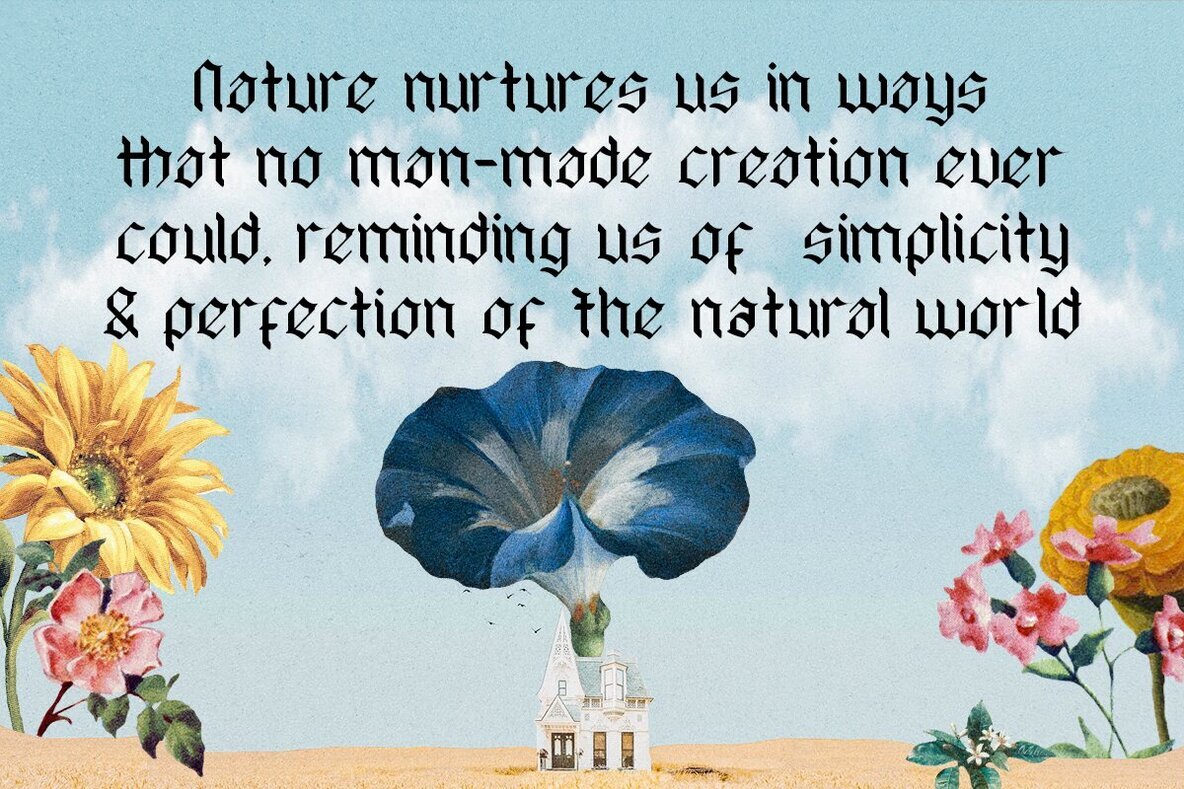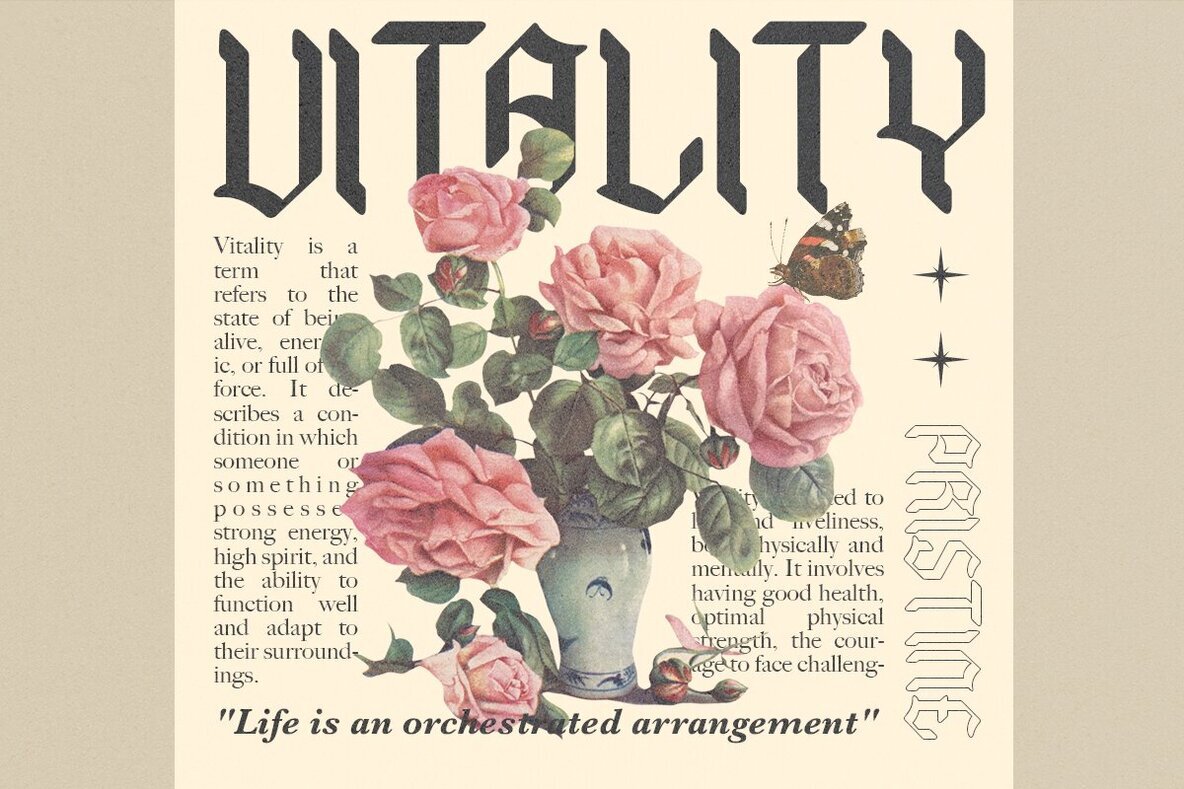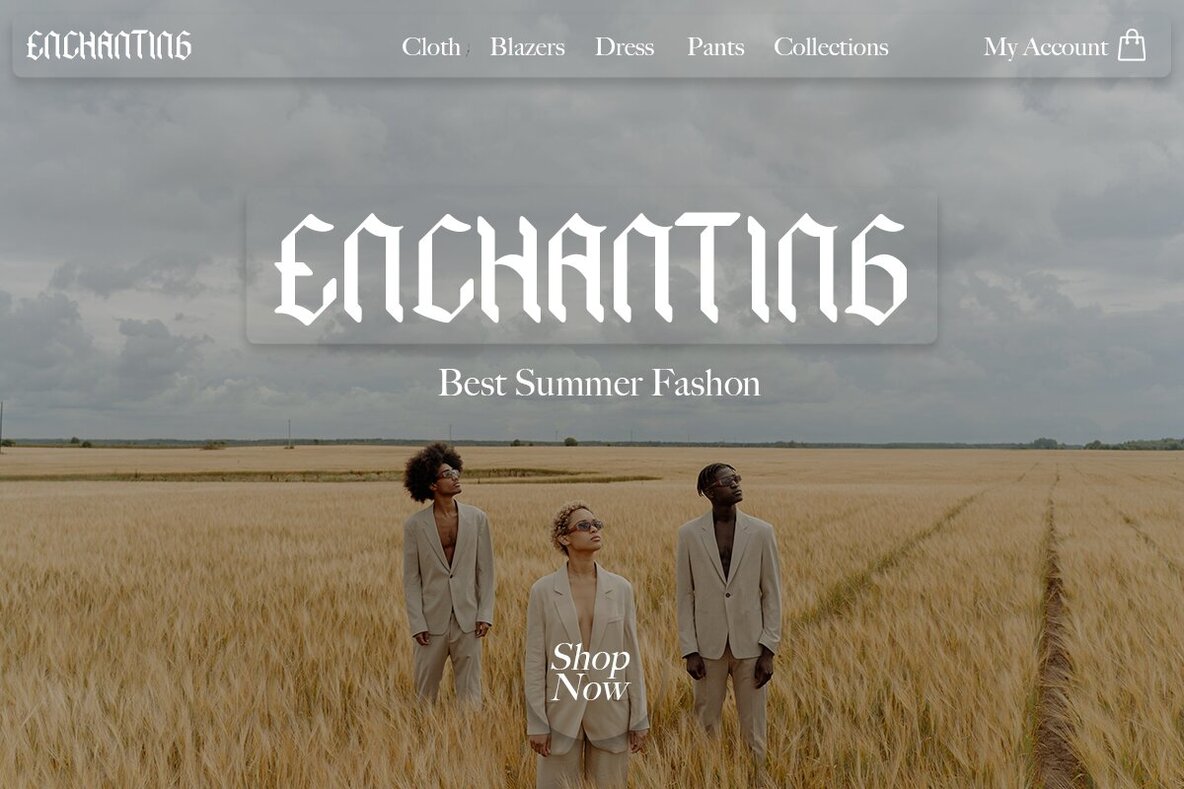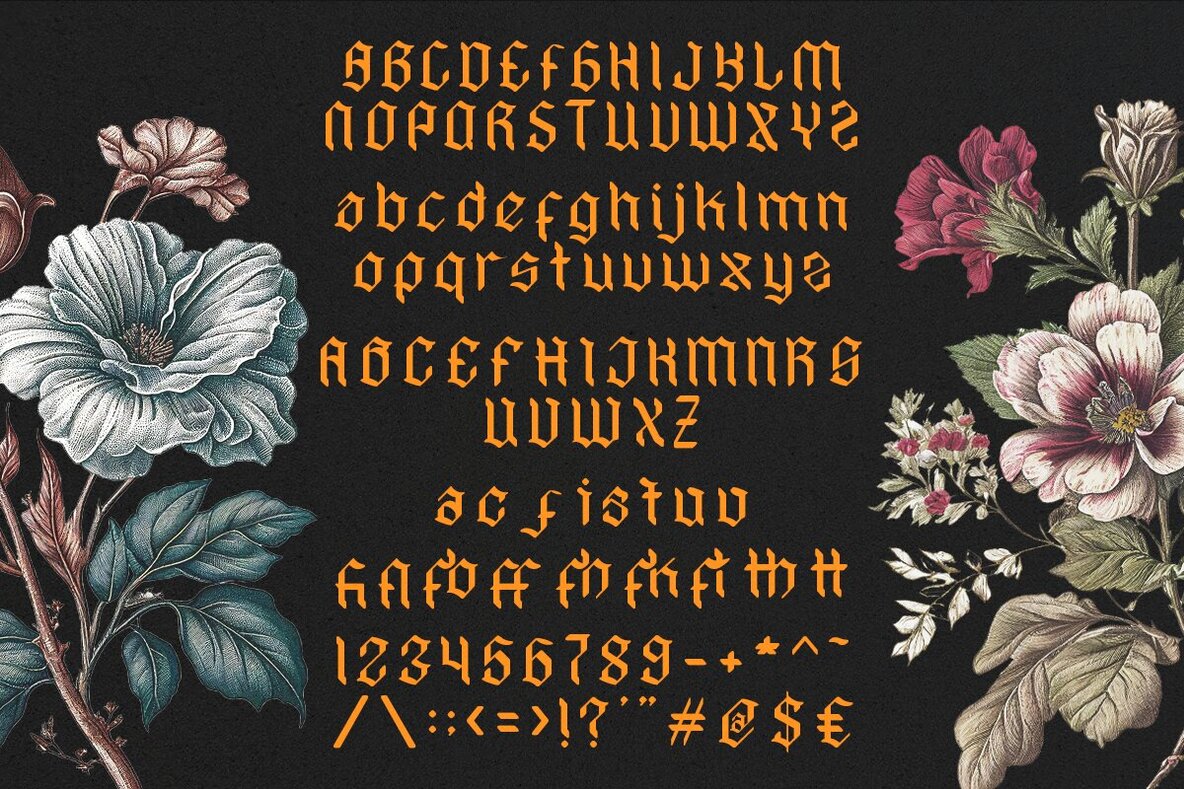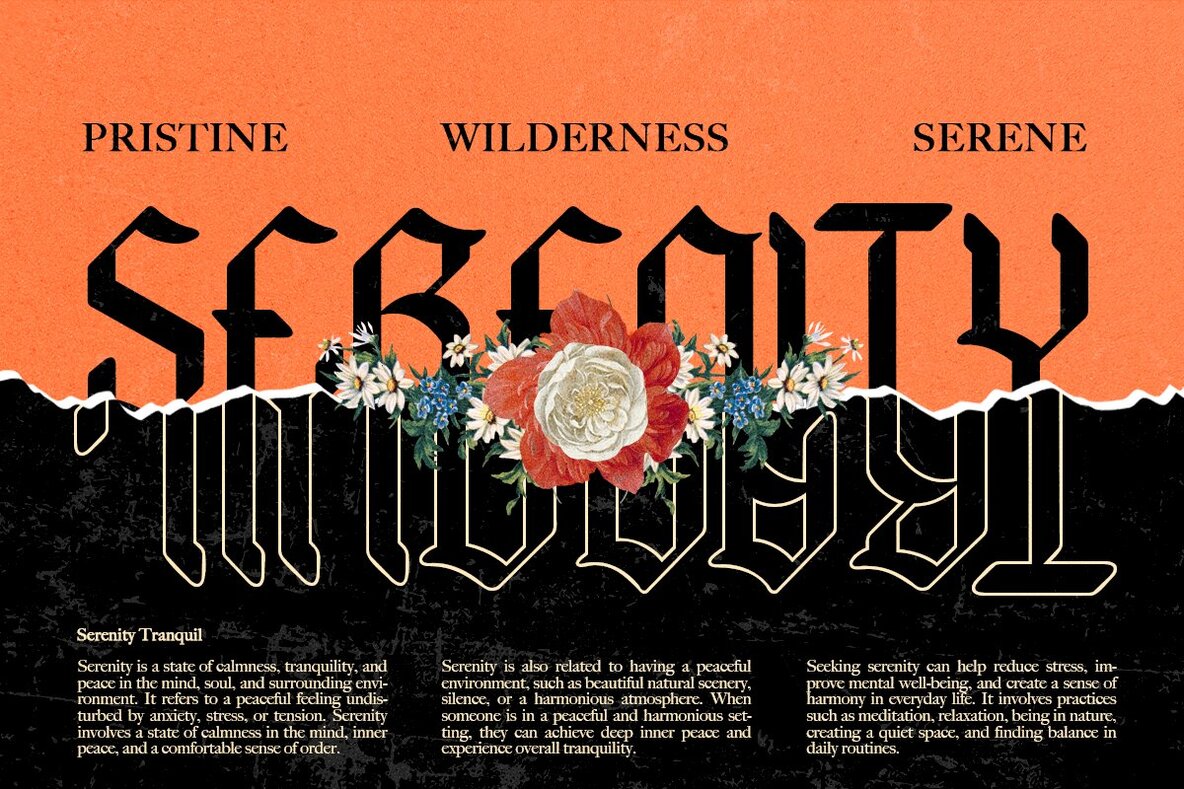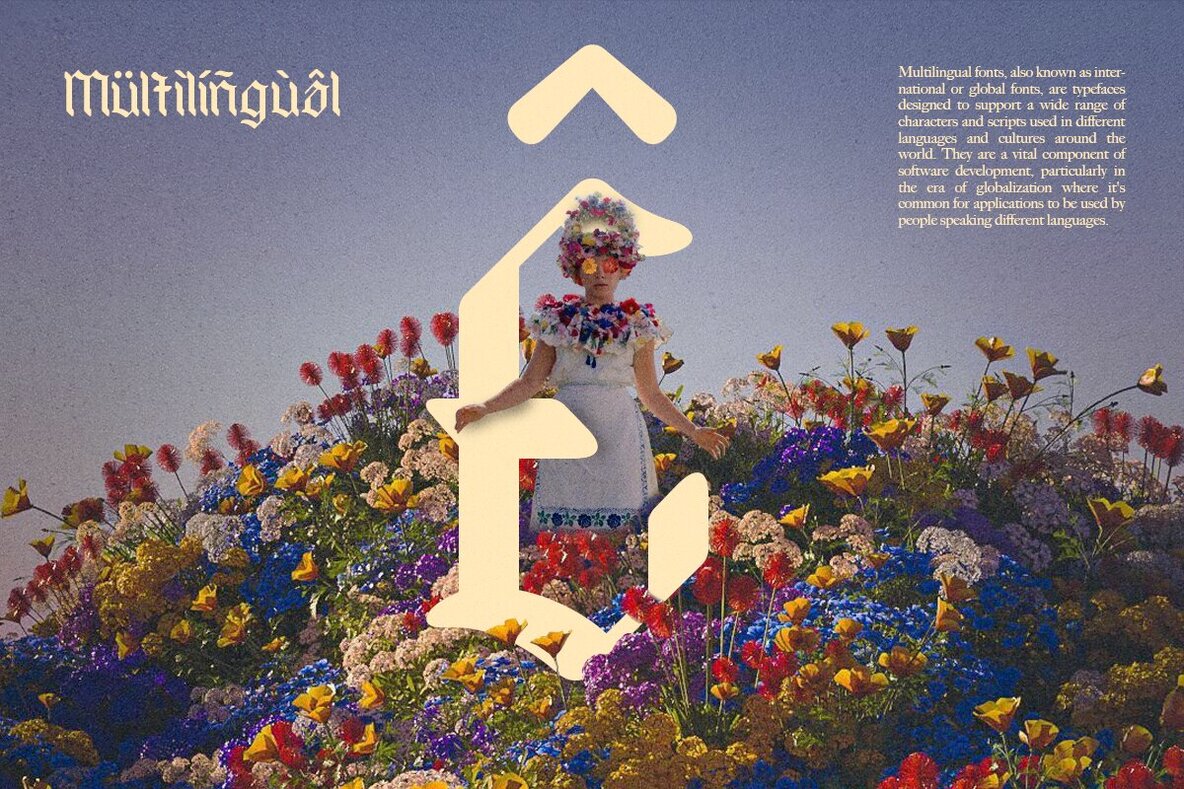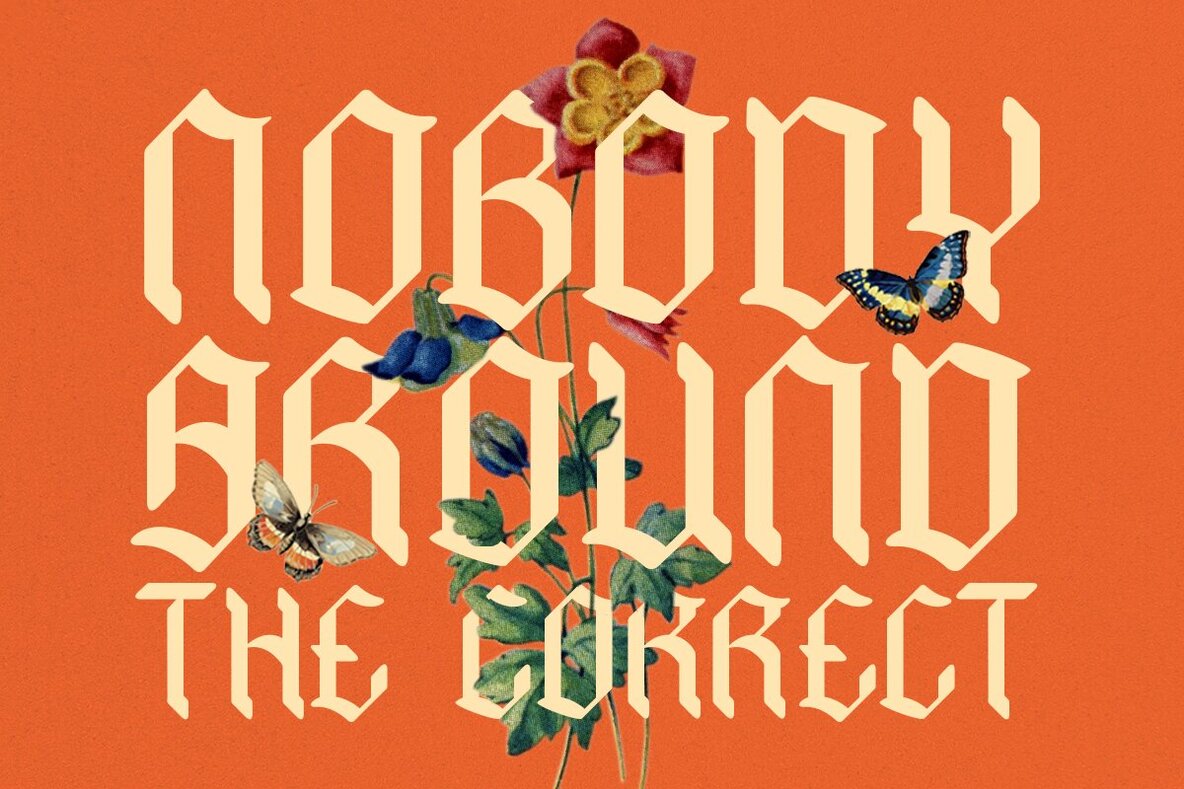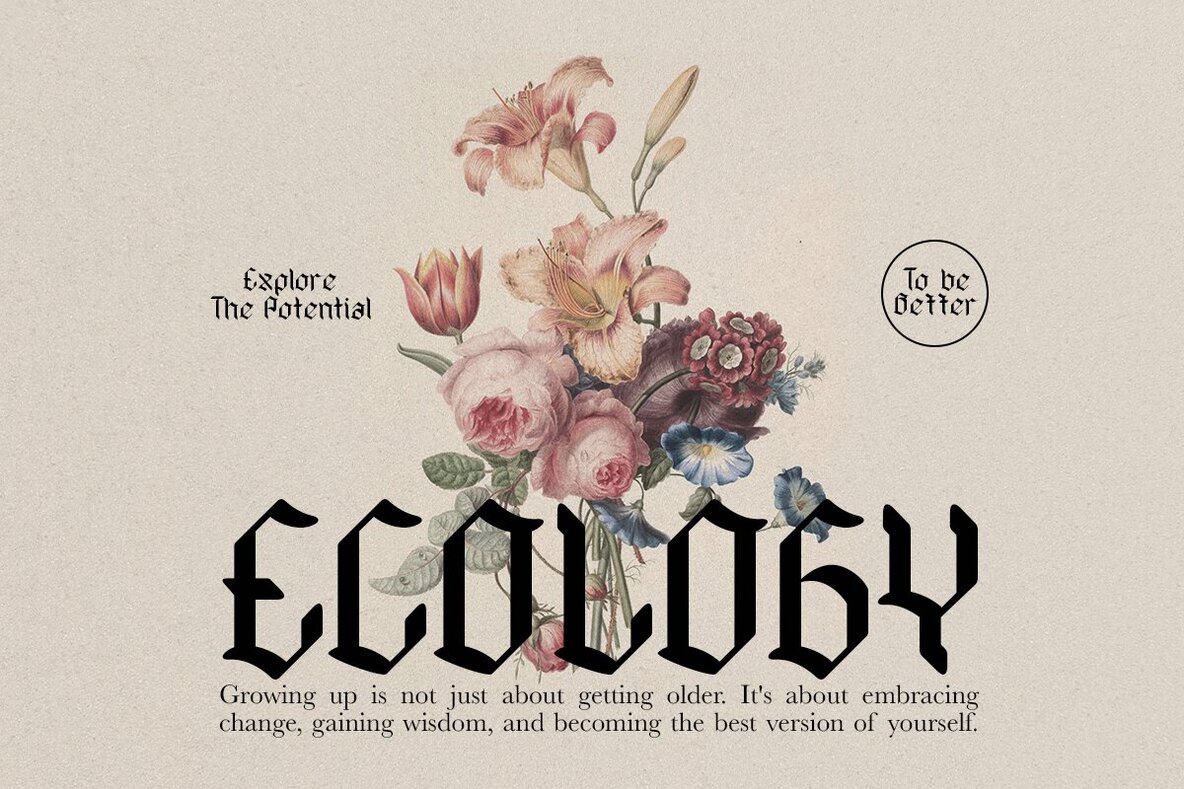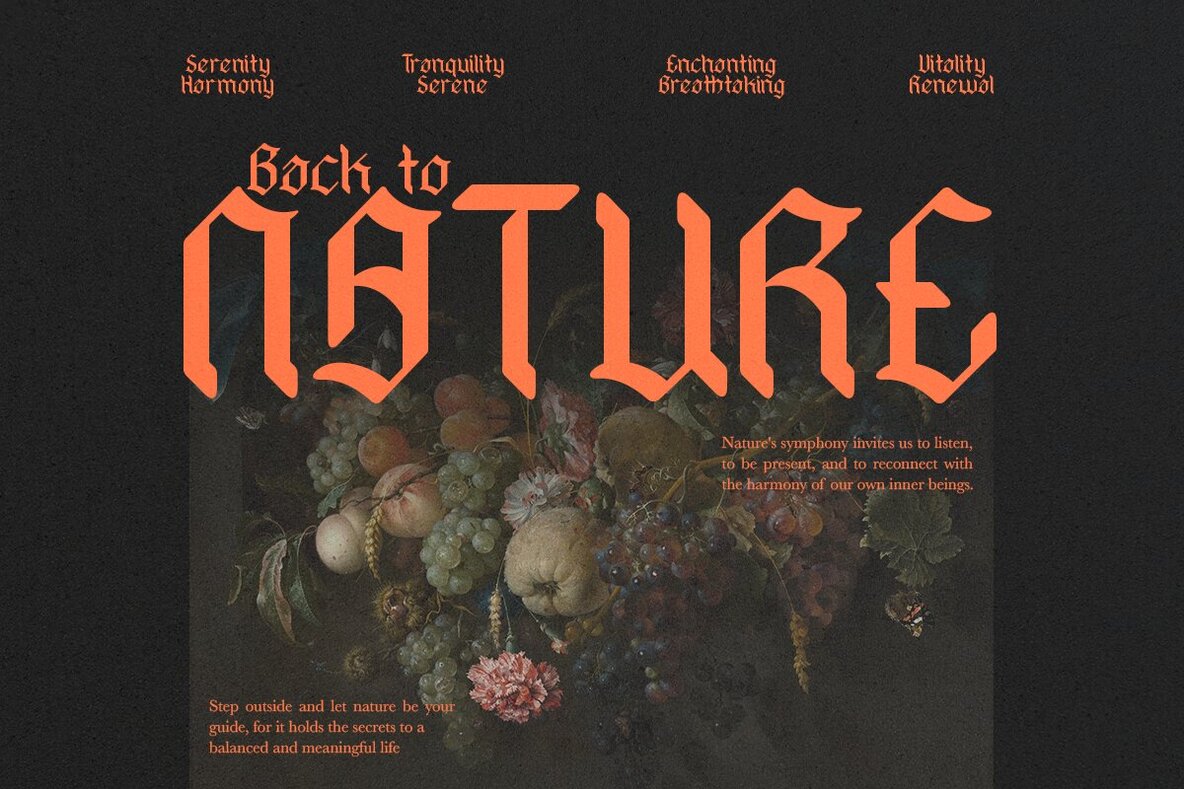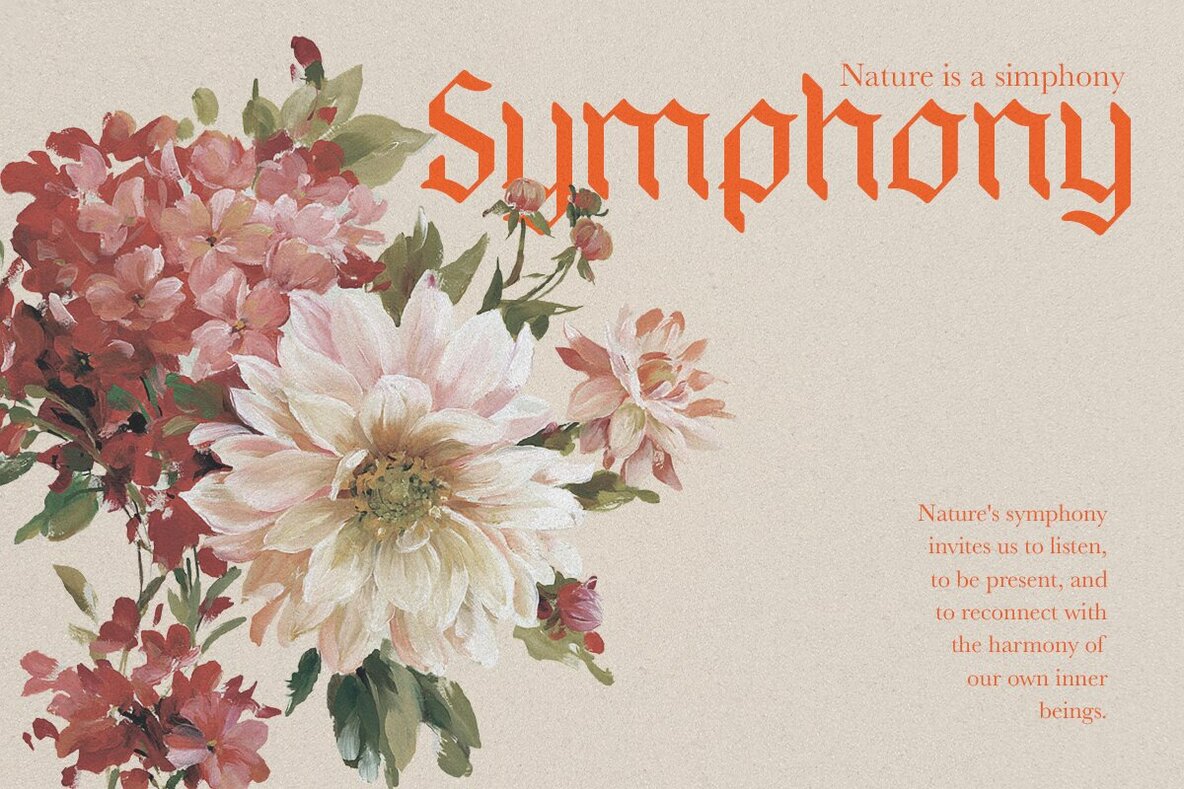
Hyacinth Font
Hyacinth Regular
Hyacinth Outline
Say hello to the new modern blackletter font, HYACINTH! Hyacinth is a modern blackletter font with a touch rounded style. With an elegant modern style, it adds a bold touch to your projects and will inspire you to create something unique and modern. Besides that, this font is also equipped with alternative characters, ligatures and multi-language support. Hyacinth is ideal for headings, flyers, greeting cards, product packaging, book covers, printed quotes, logotype, apparel designs, and album covers. Features: